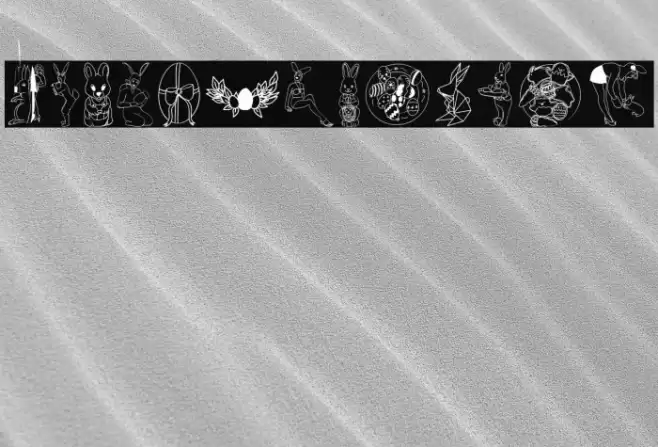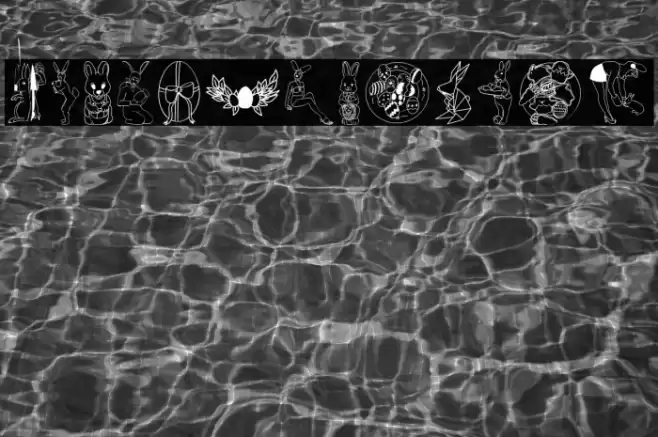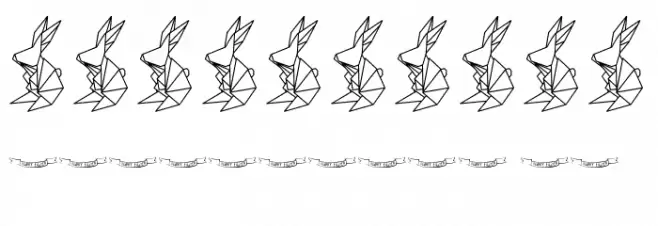
Angie's Vintage Easter Font
Angie's Vintage Easter Description
A decorative display font featuring a variety of hand-drawn Easter-themed illustrations, including bunnies, eggs, floral elements, and vintage pin-up figures. The glyphs are highly detailed, whimsical, and vary in complexity, with a consistent black outline and no fill. The style blends vintage and playful aesthetics, making it suitable for festive and creative projects.
Whimsical, vintage Easter-themed decorative font with illustrated glyphs from Uncategorized fonts.
- Font: Angie's Vintage Easter
- Proposed Projects: Holiday cards, event invitations, scrapbooking, seasonal posters, children’s crafts, decorative headings.
- Overall Style: Vintage, Decorative, Playful
- Use Case: Headlines, Decorative elements, Themed graphics